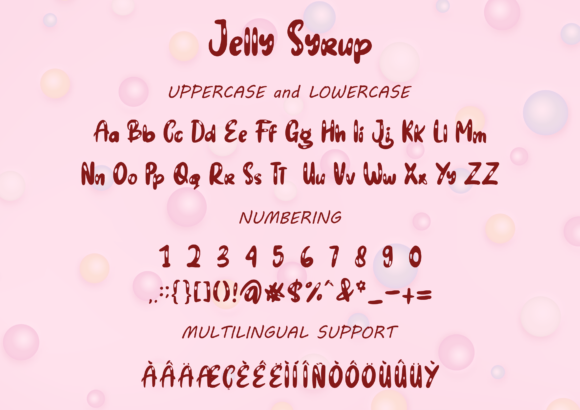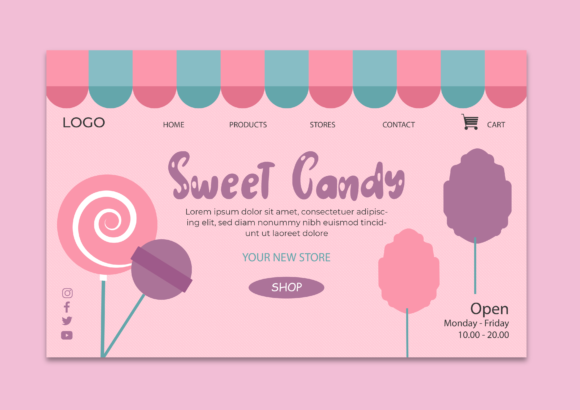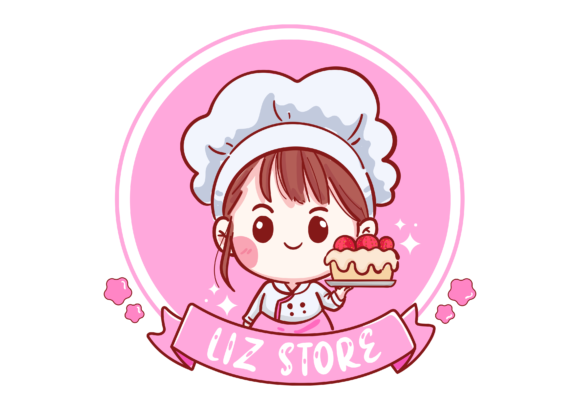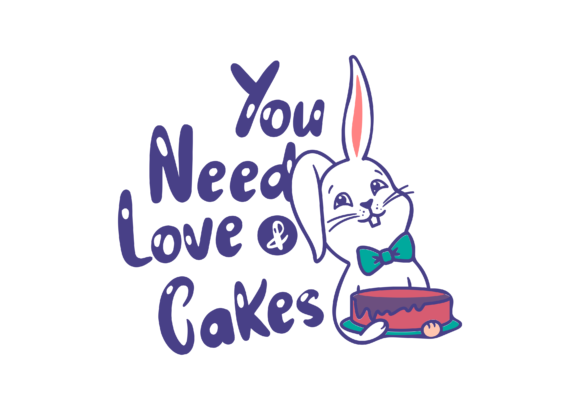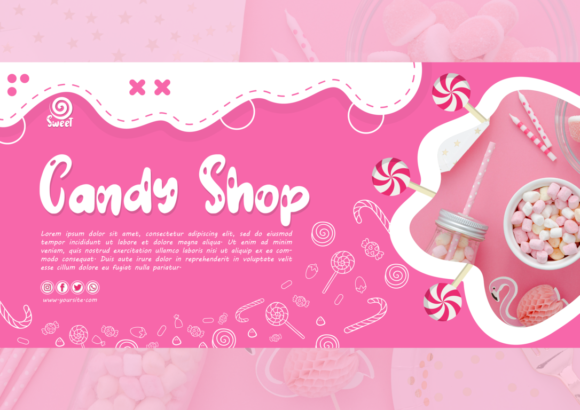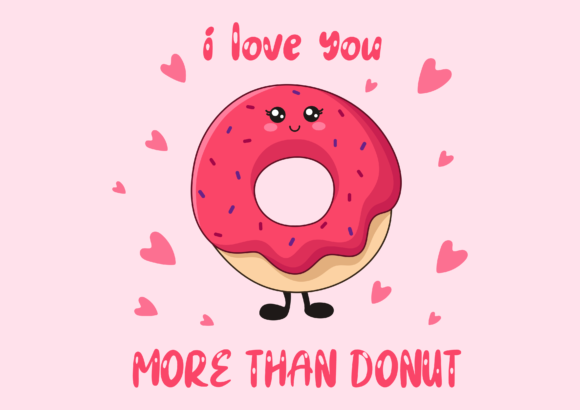
Introduction to Jelly Syrup Font
Have you ever been brainstorming ideas for a creative project and suddenly, a spark of inspiration strikes? Maybe it’s the color palette, the typography, or the overall vibe of the design. For many designers, finding the right font can be the make-or-break moment that sets the tone for the entire project. This is exactly what happened when we stumbled upon the delightful Jelly Syrup Font – a playful, bubbly display font that’s sure to bring a smile to your face.
As a valuable design resource, the Jelly Syrup Font is perfect for any project that requires a touch of whimsy and authenticity. Whether you’re working on a children’s activity, a school project, or a fun campaign for a brand, this font is sure to bring a breath of fresh air to your design. Plus, with a transparent background and high-quality design, you can use it freely in your creative project without worrying about any pesky copyright issues.
Key Features of Jelly Syrup Font
- Unique, hand-drawn design with a playful and whimsical feel, perfect for creative projects.
- Includes a range of characters, including uppercase and lowercase letters, numbers, and special characters.
- Perfect for use in a variety of creative projects, from branding and advertising to digital art and craft design.
Honest Review: Jelly Syrup Font
I recently stumbled upon the Jelly Syrup Font and was excited to give it a try for my latest creative project. The first thing I noticed was its unique and playful style, which I think would be perfect for a children’s book or a fun website.
Here are some things that work well with the Jelly Syrup Font:
- ✨ High quality and detailed design: The font is beautifully crafted with intricate details that make it stand out.
- ✨ Versatile: It can be used for a wide range of creative projects, from logos to posters.
- ⚠️ Limited font styles: There are only a few font styles available, which may limit its use in certain projects.
- ⚠️ Not ideal for formal projects: The playful style of the font may not be suitable for formal or professional projects.
Overall, I’m impressed with the Jelly Syrup Font and think it’s a great addition to any design resource. While it has its limitations, I think it’s a great choice for creative projects where a fun and playful font is needed.
To get the most out of the Jelly Syrup Font, experiment with different font sizes, colors, and styles to create a unique and eye-catching design. Use it in conjunction with other design elements, such as images and graphics, to add depth and visual interest to your creative project.
The Jelly Syrup Font is ideal for various creative projects, including branding, marketing materials, and digital art. Its transparent background makes it perfect for overlaying on images or videos, creating a seamless and professional look.
Alternatives to Jelly Syrup Font